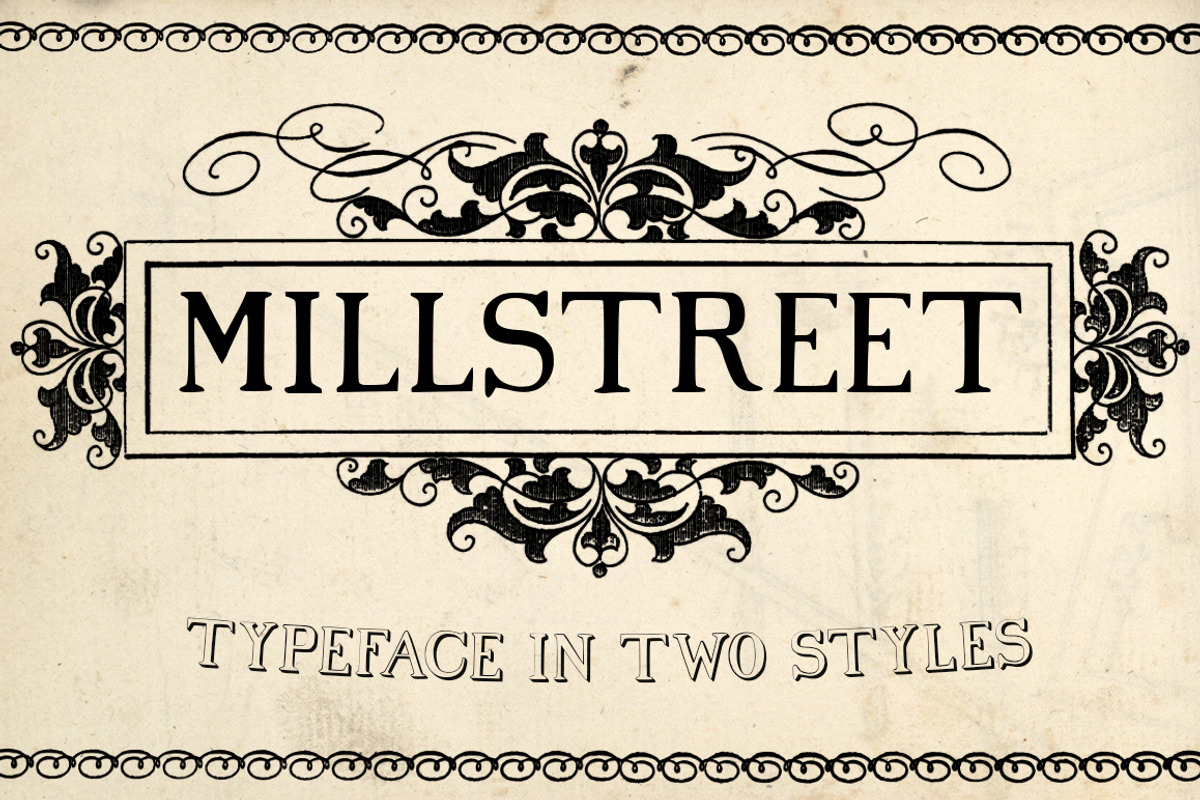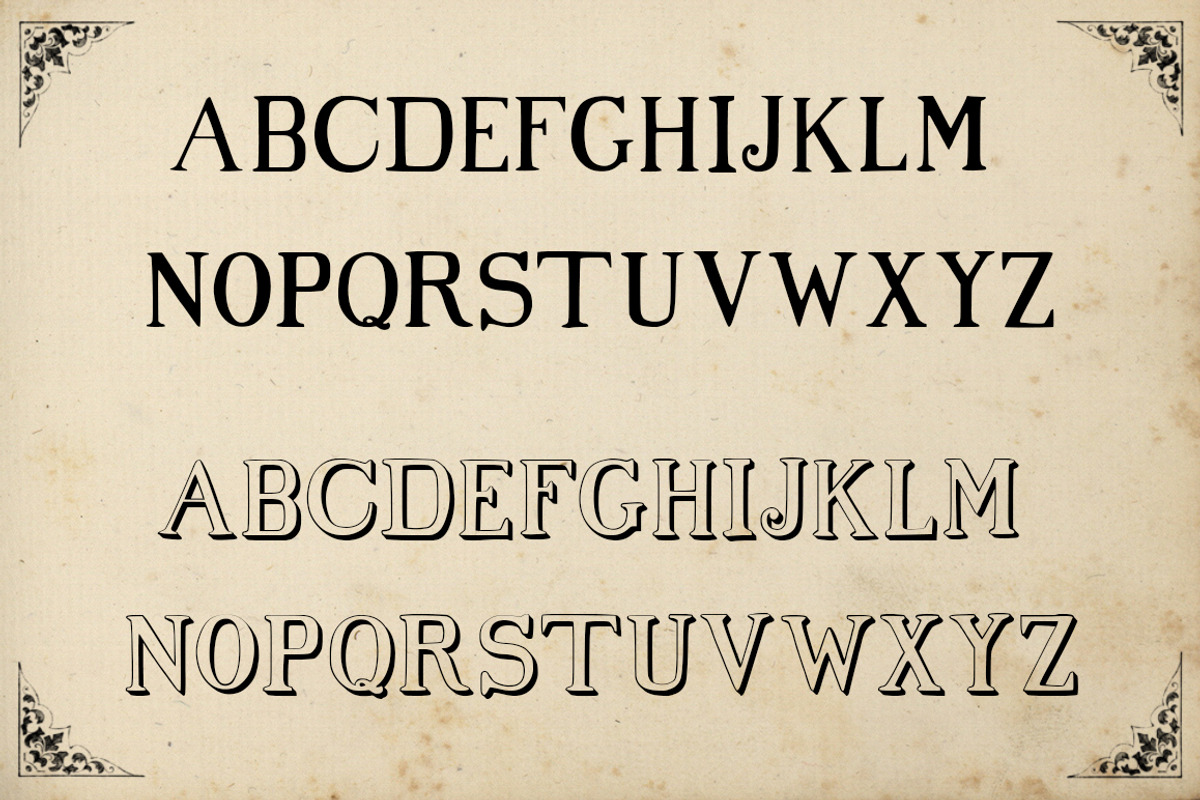
Millstreet Typeface
Millstreet Typeface by Blue Line Design is a font selected for branding, posters, packaging, typography.
Why Millstreet Typeface is worth a look
Millstreet Typeface by Blue Line Design fits naturally into Branding, posters, packaging, typography.